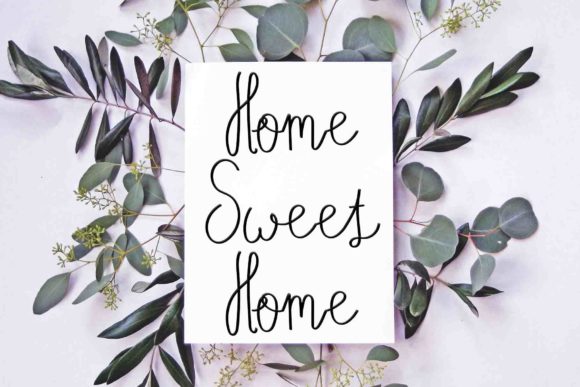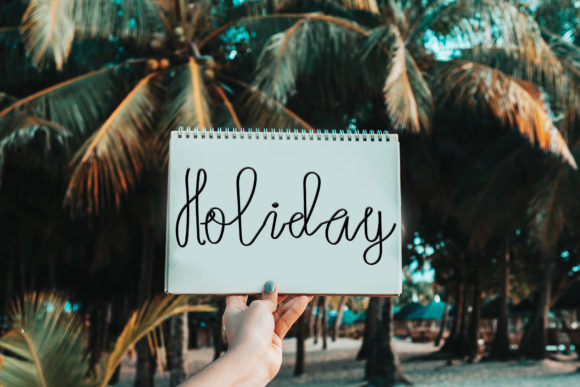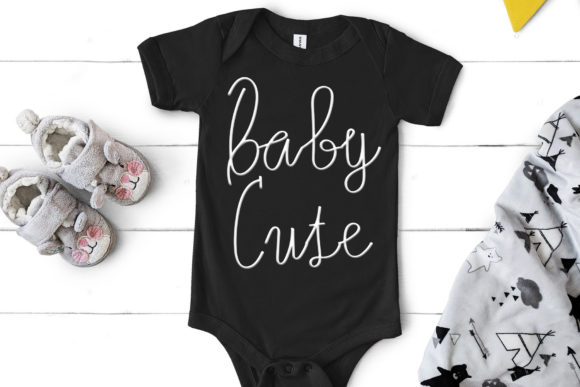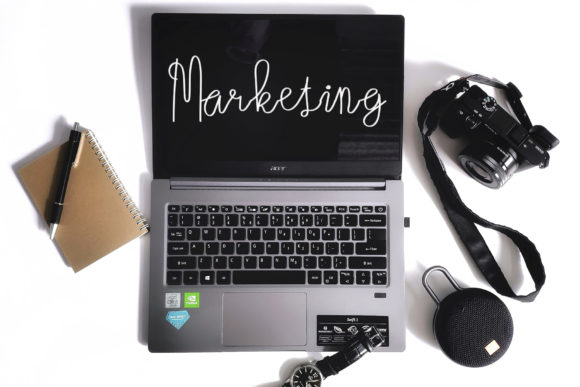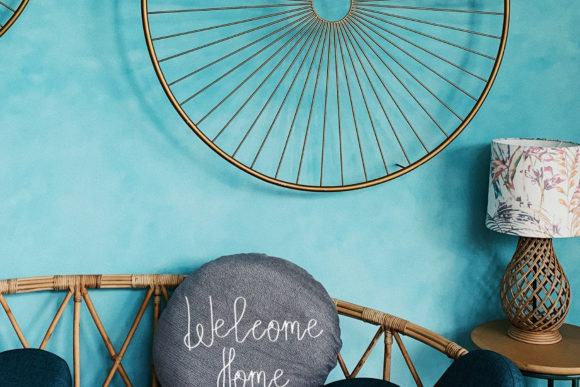
Introducing Bundle Font: Elevate Your Designs with Elegance and Sophistication
In the world of typography, a well-crafted font can make all the difference in creating visually stunning designs. If you’re a designer, crafter, or simply someone who appreciates beautiful typography, you’re in luck. Bundle Font is a gorgeous, refined script font that exudes class, elegance, and modernity. With its versatility and wide range of applications, Bundle Font is an excellent addition to any design arsenal.
What is Bundle Font?
Bundle Font is a meticulously designed script font that boasts a sophisticated and luxurious feel. Its elegant strokes, precise lettering, and flowing connections make it perfect for creating eye-catching designs that demand attention. Whether you’re working on a logo, branding project, invitation, or social media post, Bundle Font is sure to elevate your work to new heights.
Key Features of Bundle Font
- Classy and Elegant: Bundle Font’s refined design makes it ideal for high-end branding, luxury packaging, and sophisticated advertising campaigns.
- Modern Look: The font’s clean lines, subtle curves, and balanced proportions give it a distinctly modern aesthetic that’s perfect for contemporary designs.
- Versatile: Bundle Font can be used for a wide range of applications, including logos, invitations, stationery, wedding designs, social media posts, and more.
- Easy to Read: Despite its elegant nature, Bundle Font remains highly legible, making it suitable for both headlines and body text.
Use Cases for Bundle Font
Bundle Font’s versatility is one of its greatest strengths. Here are just a few examples of how you can use this beautiful font in your designs:
- Logos and Branding: Create a lasting impression with a custom logo or branding project that showcases Bundle Font’s elegance and sophistication.
- Invitations and Stationery: Add a touch of luxury to your invitations, business cards, and letterheads with Bundle Font’s refined script.
- Wedding Designs: Make your wedding designs truly unforgettable with Bundle Font’s beautiful, flowing script.
- Social Media Posts: Elevate your social media presence with eye-catching posts that feature Bundle Font’s modern, elegant look.
Tips for Using Bundle Font Effectively
To get the most out of Bundle Font, here are a few tips to keep in mind:
- Pair with Contrasting Fonts: Combine Bundle Font with a contrasting font to create visual interest and hierarchy in your designs.
- Experiment with Colors: Bundle Font looks stunning in a variety of colors, so don’t be afraid to experiment and find the perfect hue for your design.
- Pay Attention to Spacing: Make sure to adjust the spacing between letters and words to ensure optimal readability and visual flow.
In conclusion, Bundle Font is a truly exceptional script font that offers a unique blend of elegance, sophistication, and modernity. With its versatility, legibility, and stunning design, it’s an excellent choice for designers, crafters, and anyone looking to elevate their typography. Whether you’re working on a logo, invitation, or social media post, Bundle Font is sure to make a lasting impression.